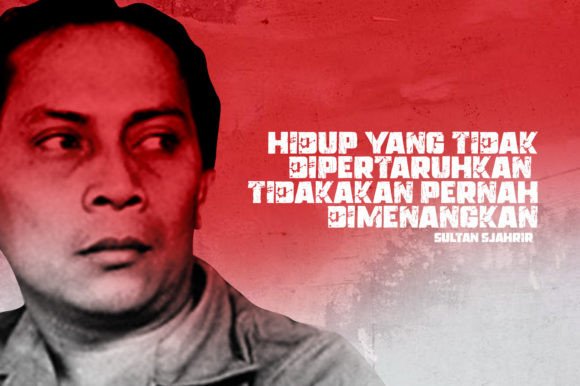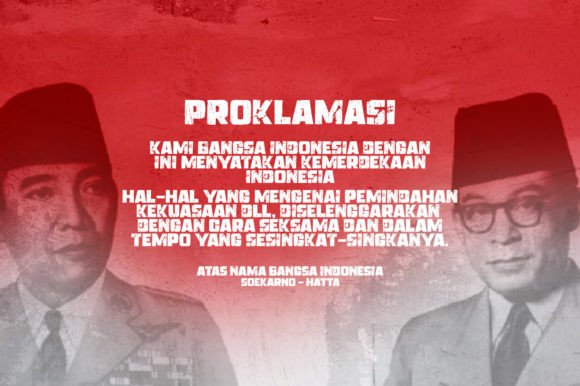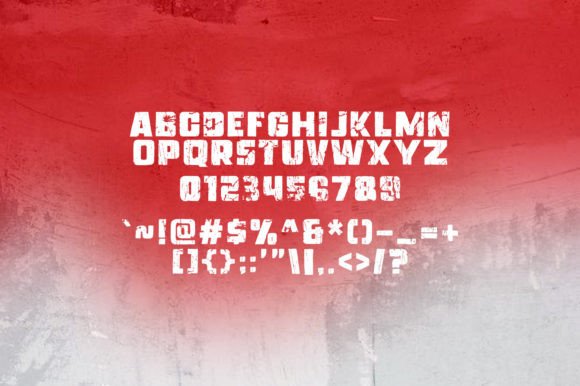
Do you remember that moment when you saw a poster or logo that just stopped you in your tracks? The typography was unique, the design was bold, and it immediately caught your attention. As a designer, you know how crucial the right font can be in making your creations stand out. That’s where the Freedom45 Font comes in – a modern sans serif rough font designed to add an extra layer of personality to your designs.
Whether you’re working on a poster, logo, magazine cover, or book design, the Freedom45 Font is the perfect addition to your creative toolkit. Its quirky charm can be easily matched to a wide range of projects, making it an invaluable asset for designers looking to add a unique touch to their work. By incorporating the Freedom45 Font into your designs, you’ll be able to take your ideas to the next level and make them truly unforgettable.
Freedom45 Font Key Features
- Font Family: A modern sans-serif font with a bold and confident look, ideal for headlines and titles.
- Unique Characteristics: The Freedom45 font features a unique blend of geometric and organic elements, giving it a distinctive and modern feel.
- Style Variations: Available in Regular, Bold, and Italic styles, allowing designers to create a range of visual effects and emphasis.
Designer Review: Freedom45 Font
Freedom45 Font is a unique and bold sans-serif font that stands out from the crowd. I appreciate its ✨ modern aesthetic, which makes it perfect for modern brands and designs that want to convey a sense of freedom and adventure. The font is highly customizable, allowing designers to adjust the weight, width, and other settings to suit their needs.
One of the standout features of Freedom45 is its ✨ versatility. It can be used for both digital and print designs, from logos and branding materials to signage and advertising campaigns. The font is also highly legible, making it suitable for long blocks of text.
- ⚠️ Limited language support: Freedom45 Font currently only supports Latin-based languages, which may be a limitation for designers working on projects that require support for other languages.
- ⚠️ Limited stylistic variations: While Freedom45 has a bold and modern aesthetic, it may not be suitable for designs that require more subtle or elegant typography.
Overall, I’m impressed with Freedom45 Font’s potential and versatility. However, its limitations should be carefully considered before deciding to use it for a project. With some adjustments and customizations, Freedom45 can be a powerful tool in a designer’s arsenal.
Tips for Getting the Most Out of Freedom45 Font
Use Freedom45 Font to create bold, modern headings and titles.
Combine Freedom45 Font with other fonts to create a unique and stylish typography.
Experiment with different font sizes and styles to add emphasis and hierarchy to your design.
Use Freedom45 Font for:
Headings and titles in brochures, flyers, and business cards.
Creating a bold and modern logo or branding identity.
Adding a touch of sophistication to your website or social media graphics.
Alternatives to Freedom45 Font for Designers
The Freedom45 Font is a sans-serif font known for its clean and modern design. However, it may not be suitable for all design projects. Here are a few alternatives that designers can consider: